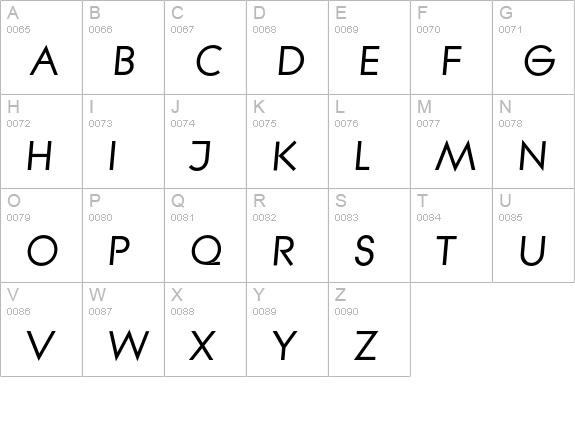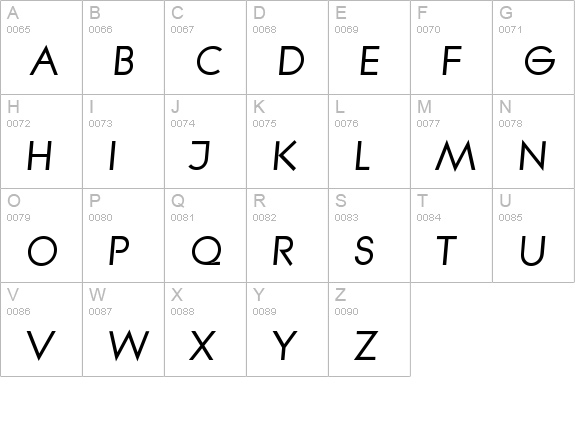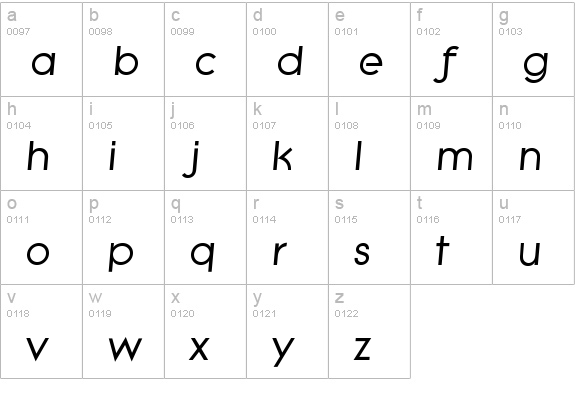
Litera-BoldIta Font Details
The Litera-BoldIta font is a stunning display typeface that exudes elegance and sophistication. Its bold and italicized design adds a touch of flair to any project, making it perfect for headlines, titles, and other eye-catching text. The unique combination of strong, thick strokes and slanted angles creates a sense of dynamism and energy that will captivate your audience. What sets the Litera-BoldIta font apart is not only its striking aesthetics but also its versatility. Whether you're designing a poster, website, logo, or any other creative work, this font will elevate your project to new heights. Its bold and italicized characters make a bold statement while still remaining highly readable, ensuring that your message gets across loud and clear. And the best part? The Litera-BoldIta font is available for free download at FontsMarket.com. That's right, you can access this incredible typeface at no cost, making it the perfect choice for budget-conscious designers looking to add a touch of sophistication to their work. Don't miss out on this opportunity to enhance your designs with the beautiful Litera-BoldIta font. Download it now and see the difference it can make!